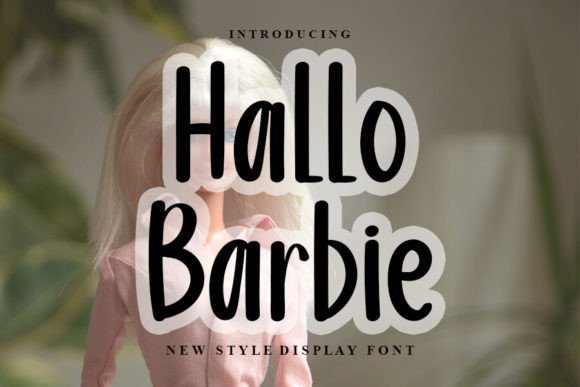
Journey into a realm of visual elegance with Hallo Barbie Font, a stunning display font that exudes contemporary charm and impeccable form. Inspired by the timeless beauty of classic calligraphy, this font was meticulously crafted to enhance the allure of your creative endeavors.
Hallo Barbie Font is more than just a collection of characters; it's an artistic expression that elevates your projects to new heights of sophistication. Its balanced strokes and varied letterforms create a harmonious composition that captivates the eye and captivates the soul.
With Hallo Barbie Font, you'll experience the joy of effortless creativity. Its intuitive design allows you to seamlessly integrate it into your projects, whether it's designing wedding invitations, creating social media graphics, or crafting heartfelt letters.
Unleash your inner artist and let Hallo Barbie Font guide you toward design excellence. Its versatility knows no bounds, adapting gracefully to a myriad of applications. From elegant wedding photos to whimsical illustrations, this font adds a touch of magic to every project it graces.
But Hallo Barbie Font is not just aesthetically pleasing; it's also incredibly user-friendly. Encoded with PUA, this font grants you effortless access to a treasure trove of glyphs and ligatures, empowering you to unleash your creativity without limits.
With Hallo Barbie Font, you'll discover a world of boundless possibilities. Its enchanting allure will cast a spell on your audience, leaving them mesmerized by the beauty of your creations.
So, dive into the world of Hallo Barbie Font today and embark on a journey of creative fulfillment. Let this font be your muse, your guiding light, as you transform your projects into breathtaking works of art.